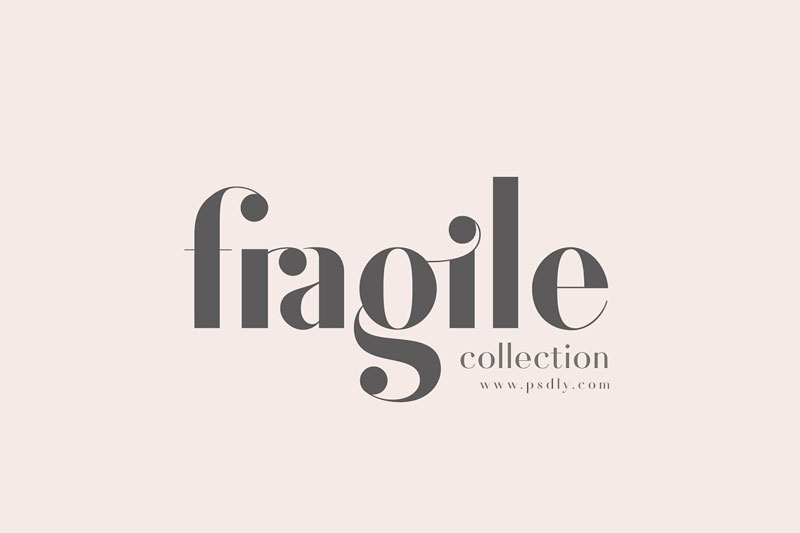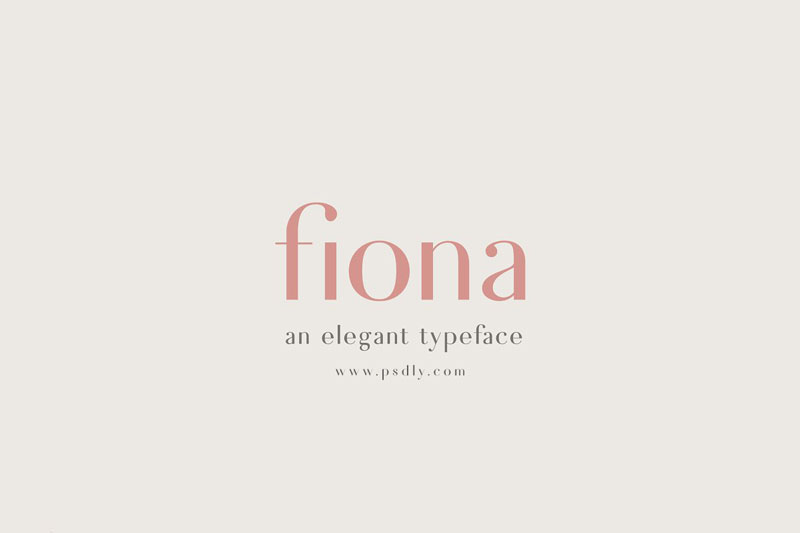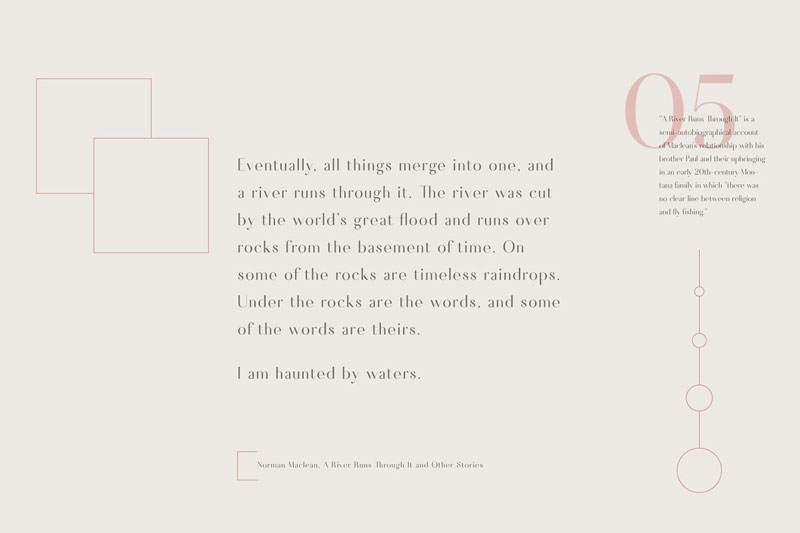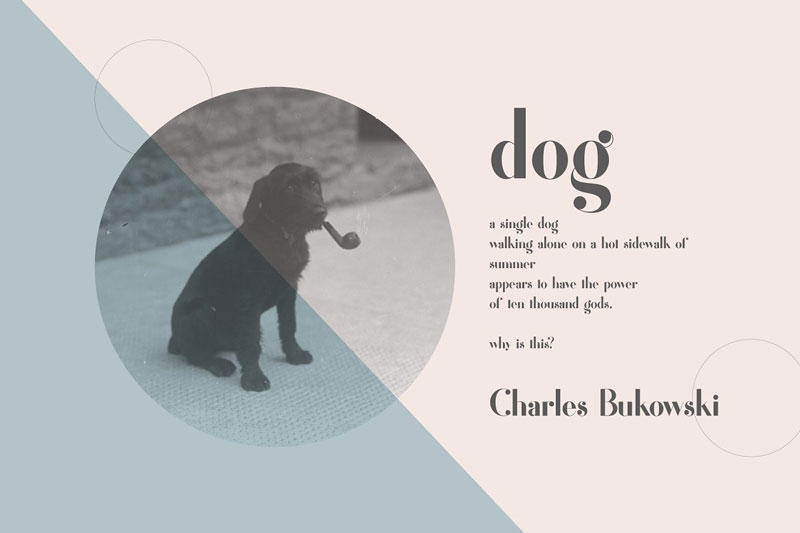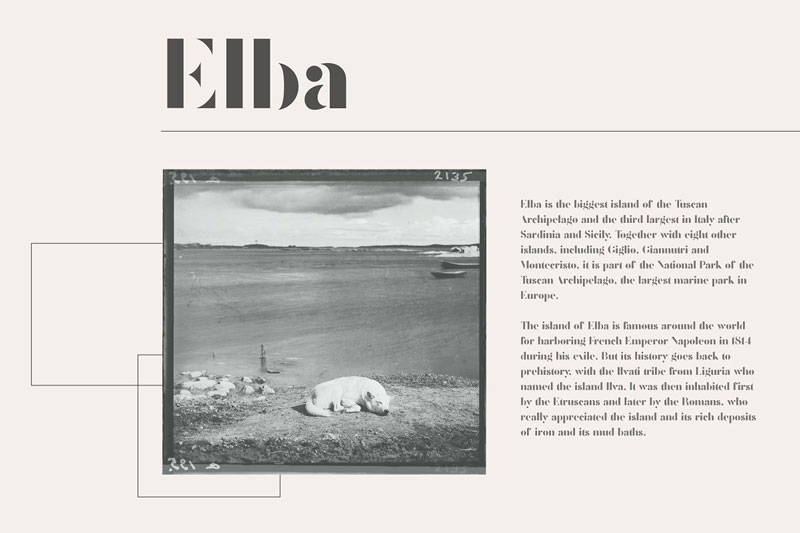
Fragile Collection (Font Bundle)
Introducing The Creativemarket Fragile Collection (Font Bundle). Create gorgeous, elegant graphics with the Fragile Collection, a collection of three unique, best-selling fonts, each with their own personality, based on classic letterforms and designed for use in headlines, invitations, logos, layouts, and more. With three distinct products, you can always find the perfect pairing or individual font for your next project.
• Fragile – a delicate typeface with gorgeous ligatures for creating beautiful graphics.
• Fiona – an elegant typeface with a sleek look and a vintage flair.
• Catalog – a bold, minimal typeface designed for use in headlines, logos, and quotes.